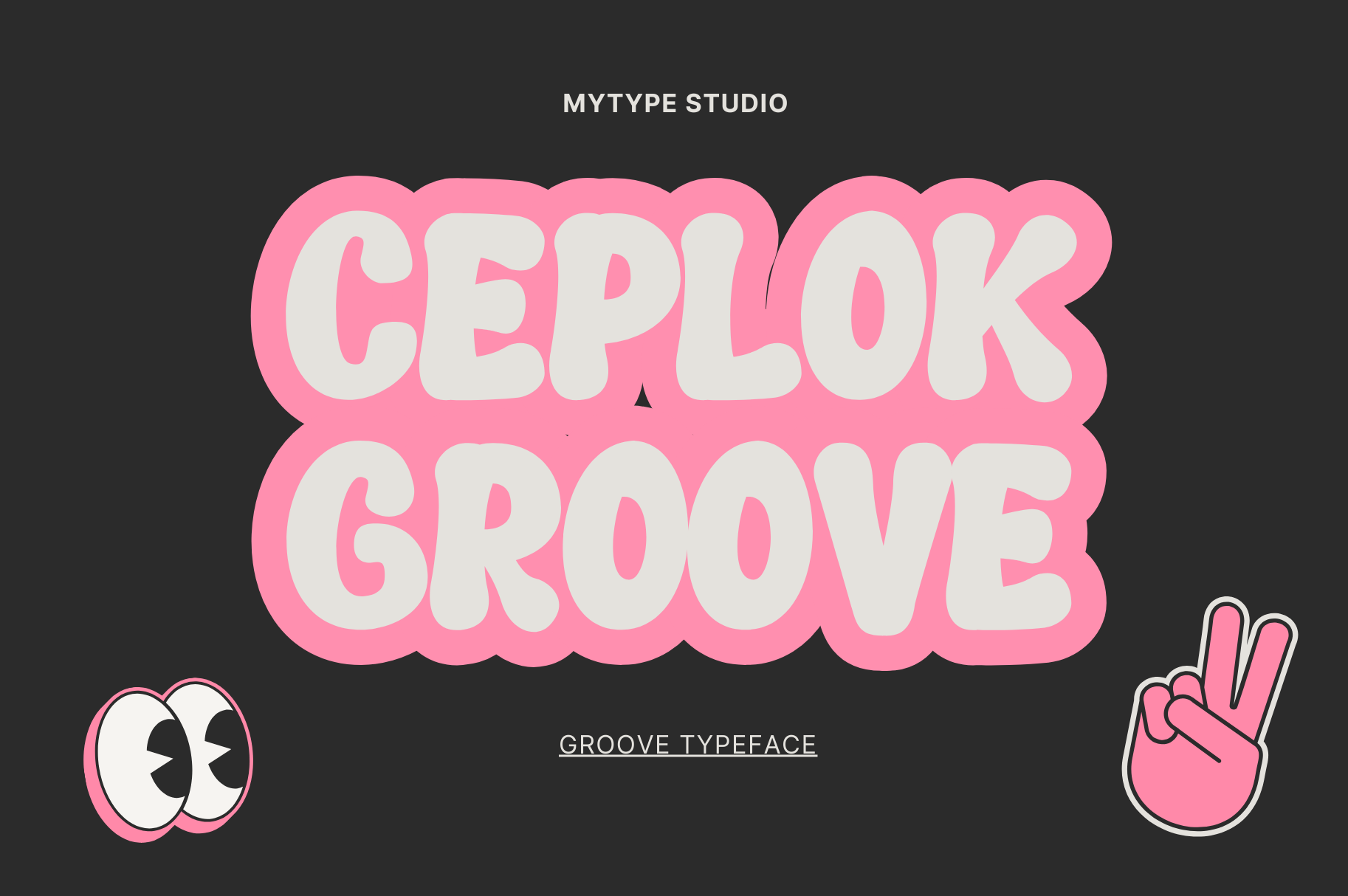
Ceplok Groove - Font
Ceplok Groove is a bold and playful typeface designed to bring a fun, retro vibe to your creative projects. With its rounded edges and groovy, bubbly forms, this font is perfect for branding, social media posts, packaging, and any design that needs a cheerful and dynamic feel. Inspired by funky 70s aesthetics, Ceplok Groove radiates positivity and energy, making it a go-to font for bold statements.